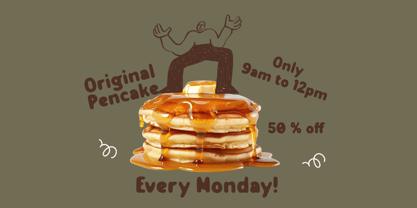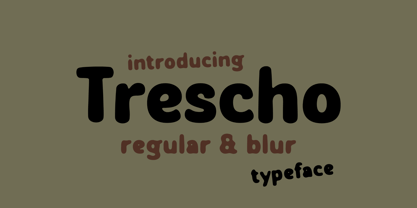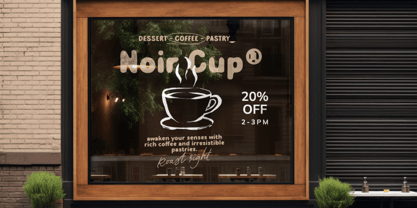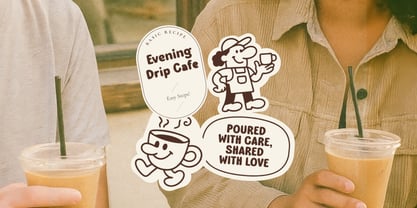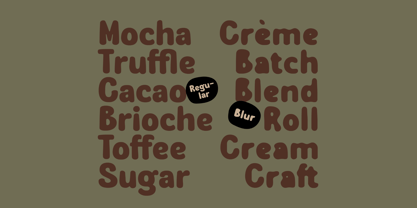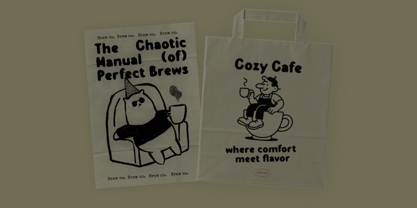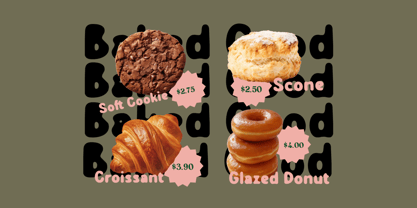
Trescho
by Glyphminds Studios
The Trescho Font Family was designed by Baliya Ibnu Bi Malkan and published by Glyphminds Studios. Trescho contains 2 styles and family package options. More about this family
Meet Trescho, a playful rounded display typeface designed to bring warmth, character, and creativity to any project. With its soft, bubbly edges and friendly personality, Trescho is perfect for children-themed projects, branding, posters, packaging, social media graphics, and anything that needs a fun, handmade vibe. Trescho comes in two expressive styles — Regular & Blur. The Regular version gives you a clean, smooth look, while the Blur version adds a soft, dreamy, and atmospheric feel that enhances playful or abstract designs. Whether you're a designer, brand owner, or creator looking for something unique, Trescho adds charm to every letter. Add a cute, creative touch to your designs with Trescho – the rounded display font that stands out effortlessly.
Designers: Baliya Ibnu Bi Malkan
Foundry: Glyphminds Studios